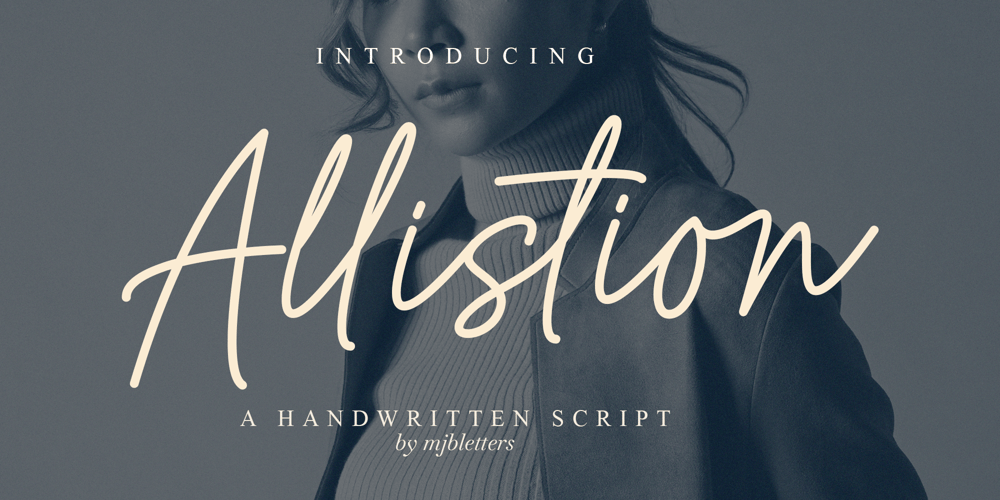
Allistion Font Family was designed by Muhammad Mujibulloh and published by MJB Letters. Allistion contains 1 styles and family package options. Allistion is a beautifully crafted handwritten script font that exudes elegance and modernity. With its smooth, flowing strokes and well-balanced letterforms, this font strikes the perfect balance between classic charm and contemporary style.Designed to bring a sophisticated touch to any project, Allistion is ideal for branding, logos, wedding invitations, packaging, social media, editorials, and other creative designs.Features:– Elegant and natural handwritten style– Multilingual support for various languages– Includes ligatures and alternates for unique customization– Versatile and easy to use across different design projectsAllistion adds a refined and professional touch to your creative work. Let your designs stand out with its graceful and timeless appeal!